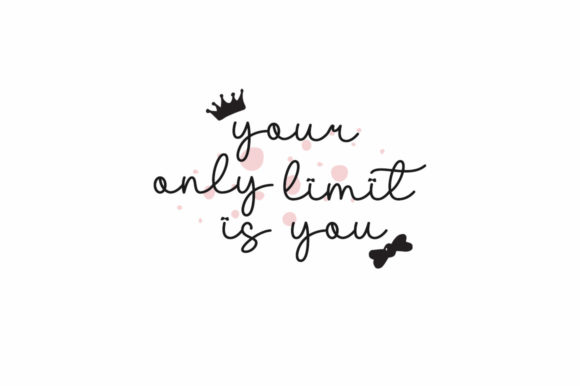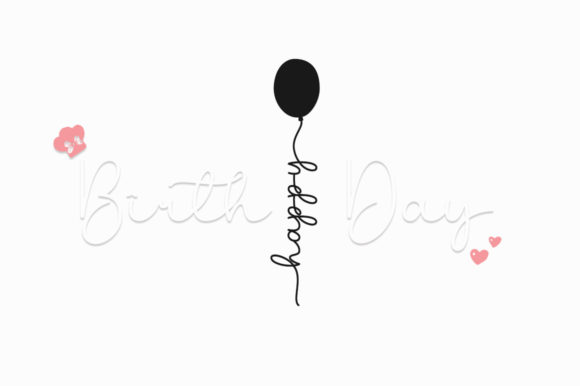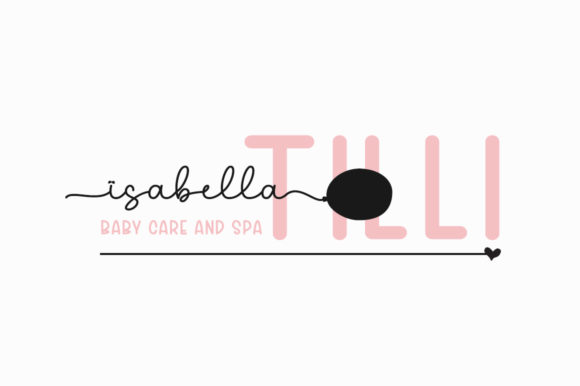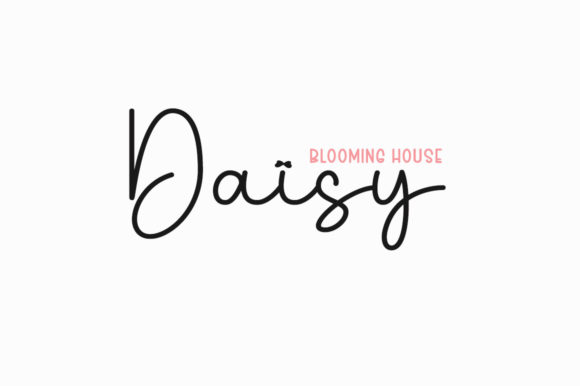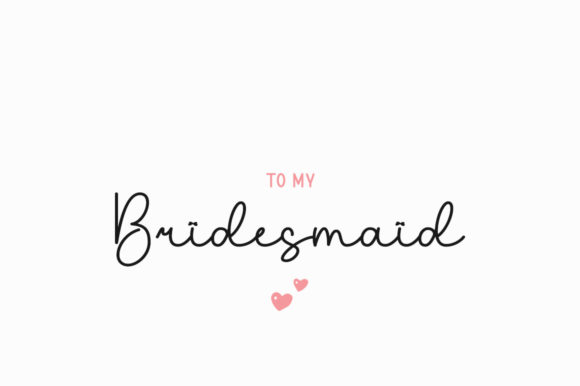
Introduction to Hi Lia Font
As a designer, there’s nothing quite like the thrill of bringing a creative project to life. You’re pouring over design resources, searching for the perfect combination of style and functionality to make your vision shine. But sometimes, it’s the little details that make all the difference. That’s where fonts like the Hi Lia Font come in – a delicate, timeless handwritten font that adds a touch of elegance to any design.
With its PUA encoding, accessing the full range of glyphs and swashes is a breeze, giving you the freedom to get creative with your design. Whether you’re working on a free download or a high-quality commercial project, Hi Lia Font is a valuable asset that’s sure to elevate your work. Its transparent background and high-quality design make it a versatile resource for any designer looking to add a touch of sophistication to their projects.
Key Features of Hi Lia Font
- Unique and Creative Design: Hi Lia Font is designed to add a touch of elegance and sophistication to your creative projects.
- High-Quality Typography: This font features high-quality typography with clear and readable characters, perfect for a variety of design applications.
- Transparent Background: The transparent background of Hi Lia Font makes it ideal for use on images or videos with complex backgrounds.
- High Resolution: This font is designed at a high resolution of 300 DPI, ensuring that it looks great on any device or screen.
- Perfect for Design Projects: Hi Lia Font is a great design resource for a variety of creative projects, including logos, branding, and packaging.
Honest Review: Hi Lia Font
As a designer, I’ve had my fair share of exploring various fonts for my creative projects. Recently, I stumbled upon the Hi Lia Font, and I must say it’s been a game-changer for me. This free download has been a great addition to my design resource collection.
What works well with Hi Lia Font is its versatility. It comes in a range of styles, from cursive to script, making it suitable for a variety of design projects. The high quality of the font is also impressive, with a transparent background that makes it easy to use in any design setting.
- ✨ Versatile and suitable for various design projects
- ✨ High quality with a transparent background
However, I do have to mention a few limitations. The font family is not as extensive as some other popular fonts, and the characters may not be as detailed as some designers would like.
- ⚠️ Limited font family
- ⚠️ Characters may not be as detailed as some designers prefer
Overall, I’m impressed with the Hi Lia Font. While it may not be perfect, its strengths far outweigh its limitations, making it a valuable addition to any designer’s toolkit.
Some common use cases for Hi Lia Font include creating logos, business cards, and social media graphics.